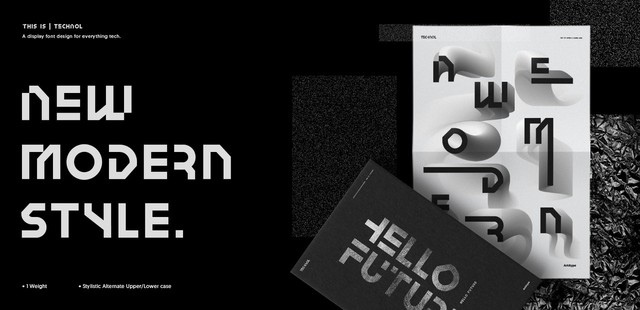
Technol Font
Technol Font is perfect for technology company branding, software interface design, robotics marketing, artificial intelligence logos, cybersecurity signage, tech startup presentations, digital innovation campaigns, and futuristic product packaging.
What makes Technol Font exciting is its cutting-edge precision that embodies the relentless advancement and systematic thinking of modern technology. The font features engineered letterforms with digital geometry and algorithmic character that evoke circuit boards, data streams, and the infinite possibilities of technological innovation. Its distinctive tech-inspired styling and computational aesthetic communicate progress, reliability, and scientific excellence, making every message feel powered by advanced algorithms and backed by rigorous engineering principles.
The Technol Font family includes regular weight with uppercase and lowercase letters, numerals, punctuation marks, and comprehensive special characters. Premium versions often feature multiple weights and technical alternates that enhance the digital, systematic aesthetic perfect for technology and engineering applications.
This advanced technical typeface brings instant credibility and technological authority to any innovation-focused project. Technol Font Free Download delivers exceptional results for businesses and organizations in technology sectors seeking to communicate expertise, innovation, and cutting-edge capabilities to technical and professional audiences.
The systematic character of Technol Font makes it particularly valuable for software companies, engineering firms, and technology consultancies. Its excellent readability across digital platforms ensures technical specifications and product information remain clear while maintaining the distinctive technological aesthetic that appeals to engineers, developers, and tech-savvy consumers.
Technology marketers and engineering professionals appreciate how Technol Font effortlessly conveys technical competence and innovative thinking. The font's digital proportions and engineered details create authoritative brand materials that establish trust with audiences seeking reliable technology solutions and advanced engineering expertise.
The versatile innovation of this typeface extends to research institutions, automation companies, and digital transformation services where technological credibility enhances competitive advantage. Technol Font Free Download provides creative professionals with an essential tool for developing memorable, technology-driven designs that resonate with audiences who embrace digital innovation, systematic thinking, and the transformative power of advanced technology in today's rapidly evolving digital landscape.